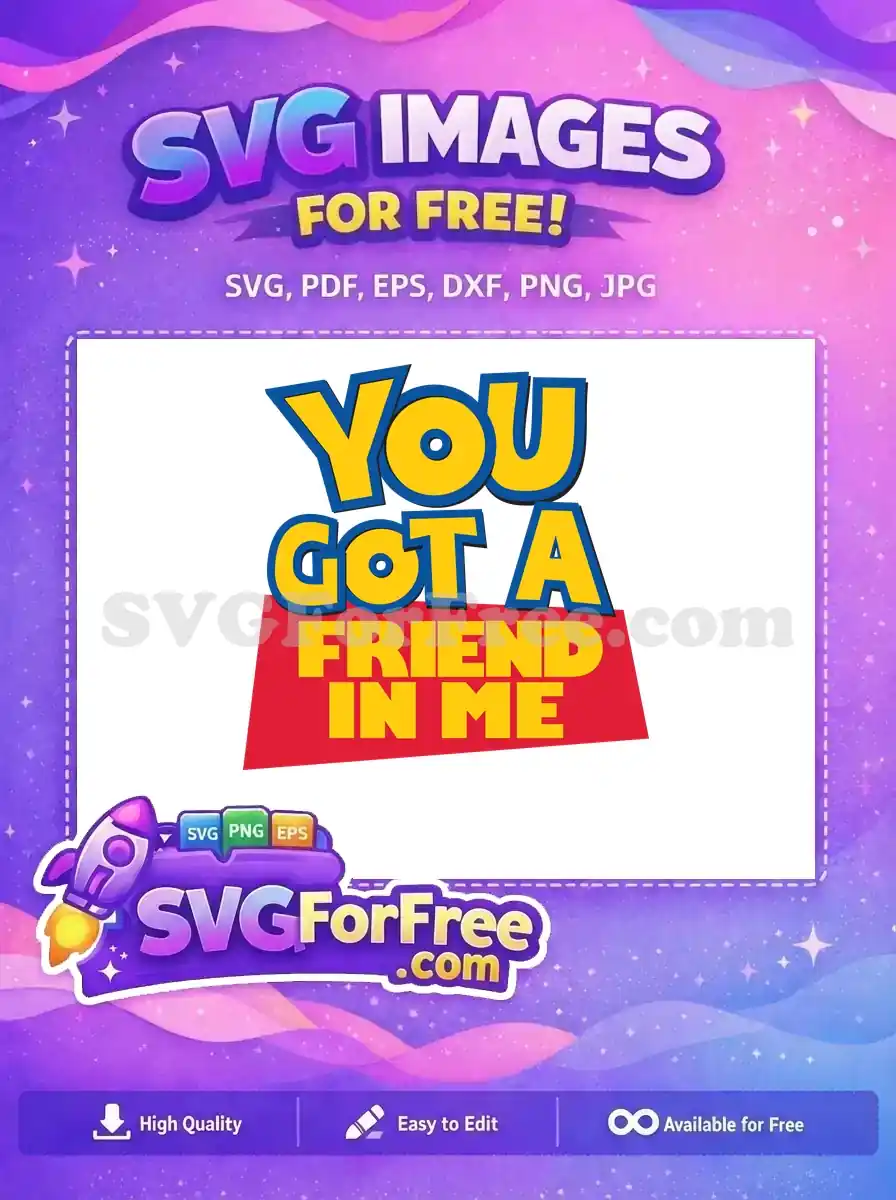
Free Bold Font Free Red Block Toy Story Free SVG – Instant Download
Bold, capitalized text ‘YOU GOT A FRIEND IN ME’ with a sheriff badge icon incorporated into the word ‘YOU’, complimentary vector.